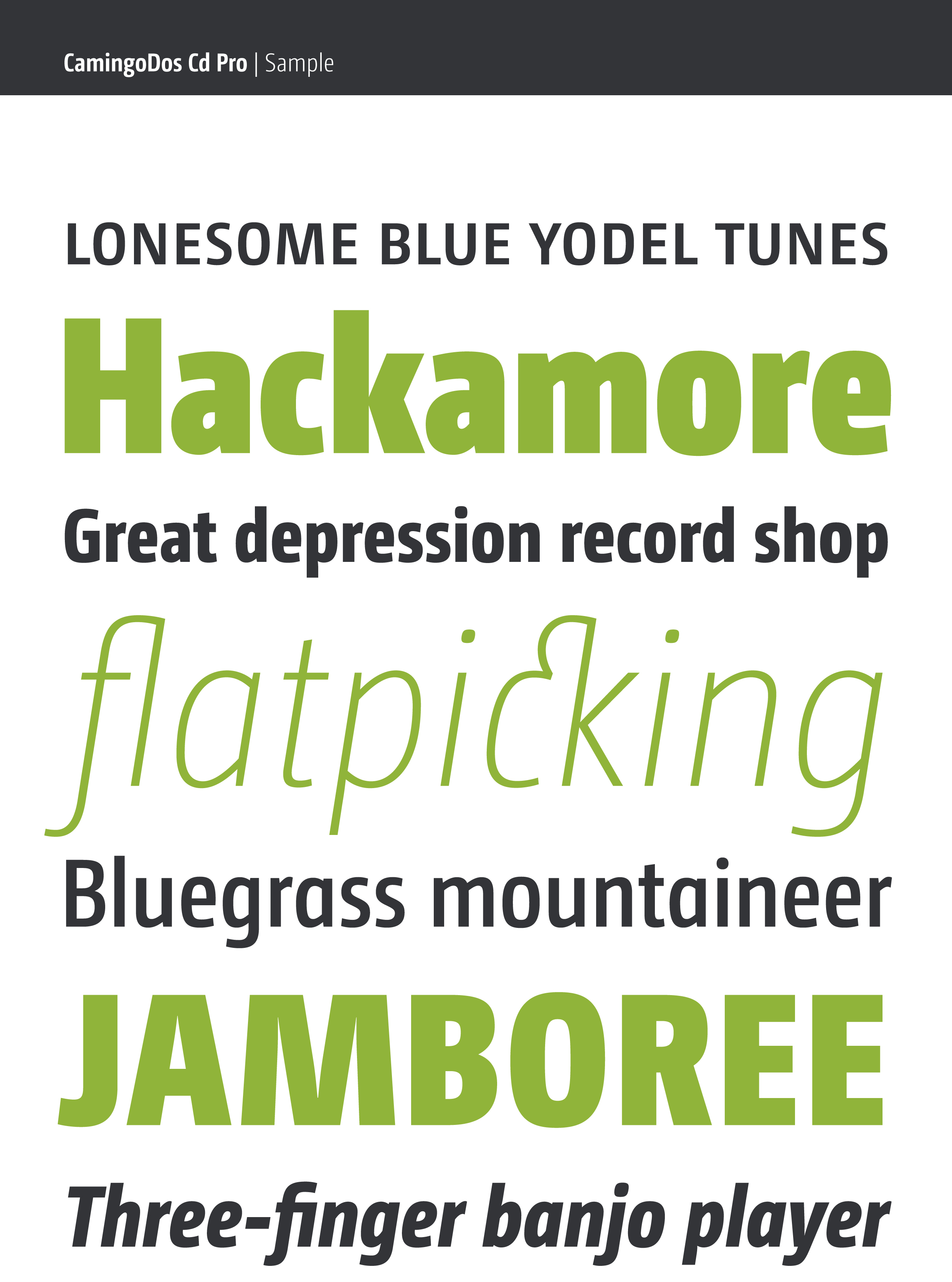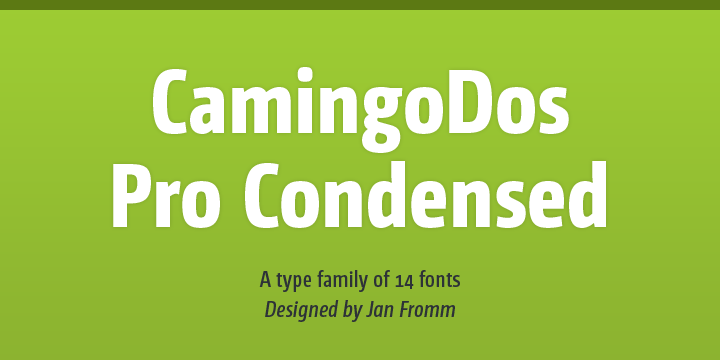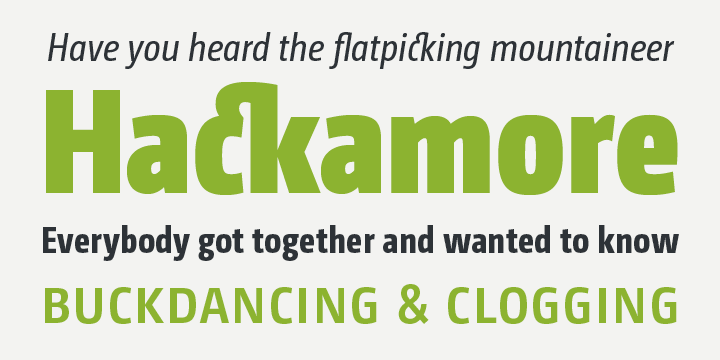
CamingoDos Pro Condensed
CamingoDos Pro
CamingoDos Pro Condensed Font Family
CamingoDos Pro Condensed was designed to achieve a more powerful impact for the use in headlines. The compact appearance and the tight letter spacing makes it an ideal solution for display settings on a limited space. Package information: CamingoDos Pro Condensed is available in the OpenType format, contains about 900 glyphs and supports most latin based languages. It offers a rich set of expert typographic features like small caps, ligatures, stylistic alternates, different figure sets, arrows, fractions and ordinals.